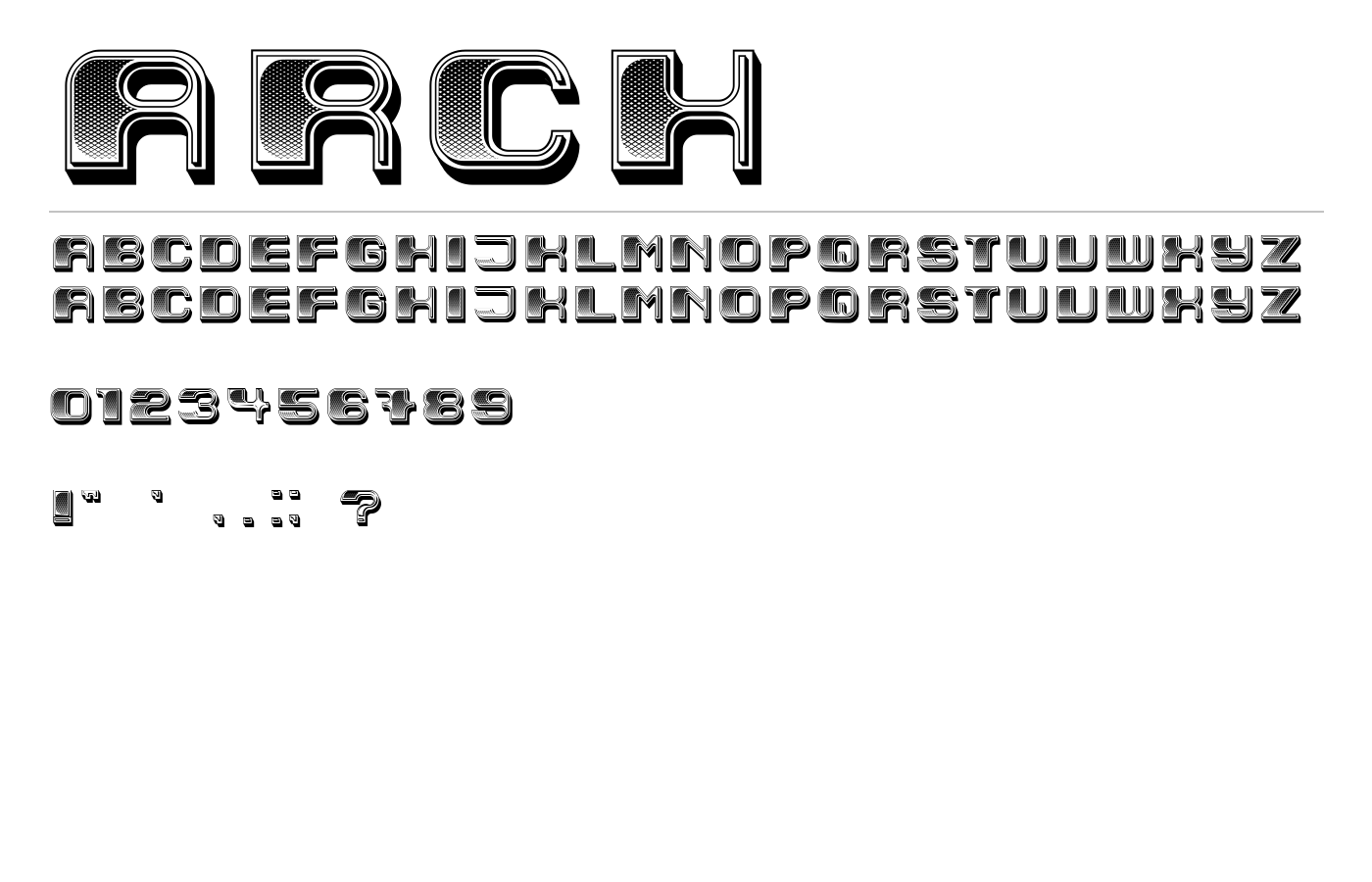
Arch Font is a bold, decorative sans serif typeface with a distinctive retro-futuristic vibe, featuring layered shading and geometric shapes that create a three-dimensional effect. Its sturdy, uppercase letters and high contrast detail make it perfect for eye-catching headlines, logos, and poster designs where a playful yet strong visual impact is desired. This font works best for creative branding and designs that want to convey a vintage-modern fusion with a fun and dynamic personality.
Arch Font
About Arch Font